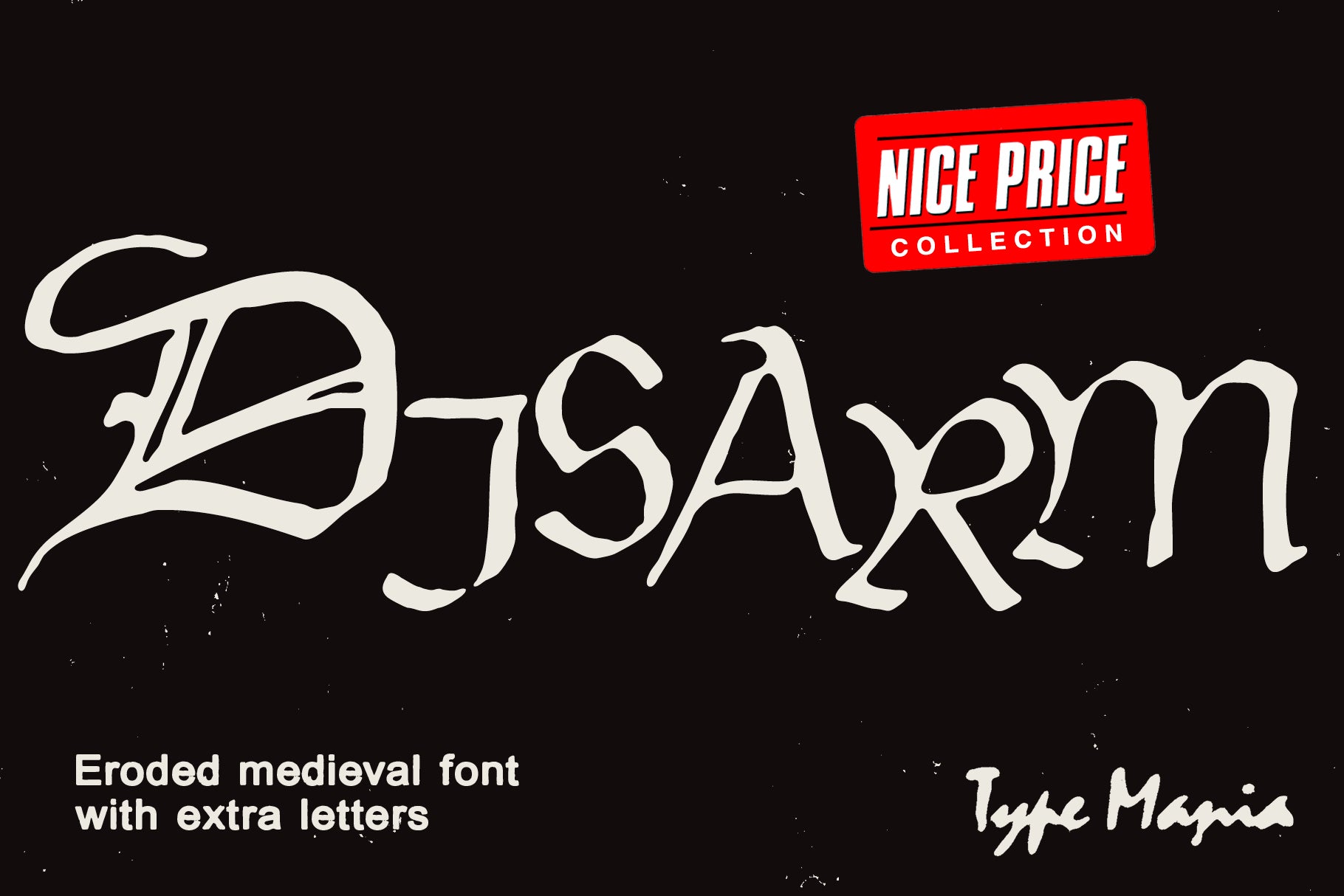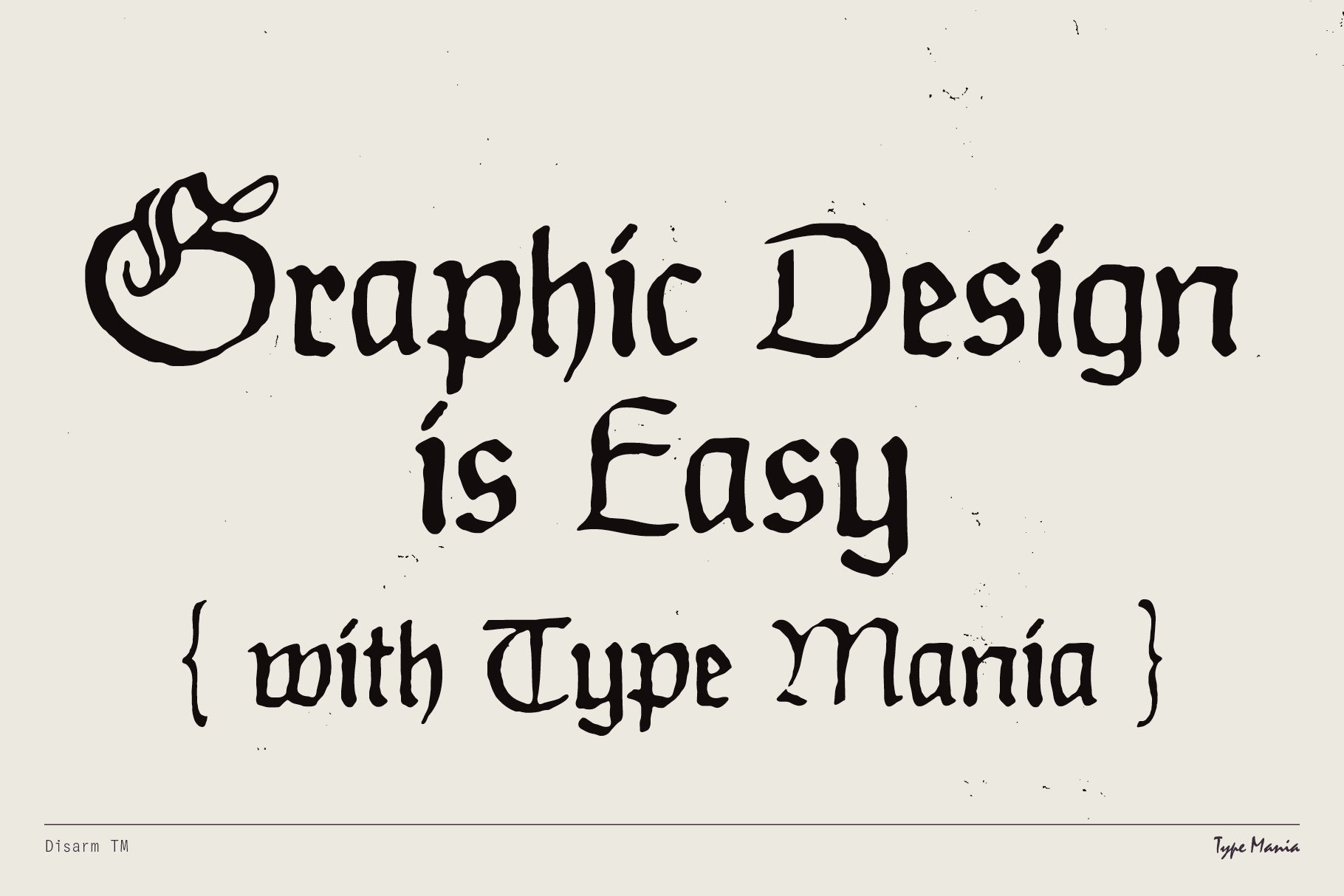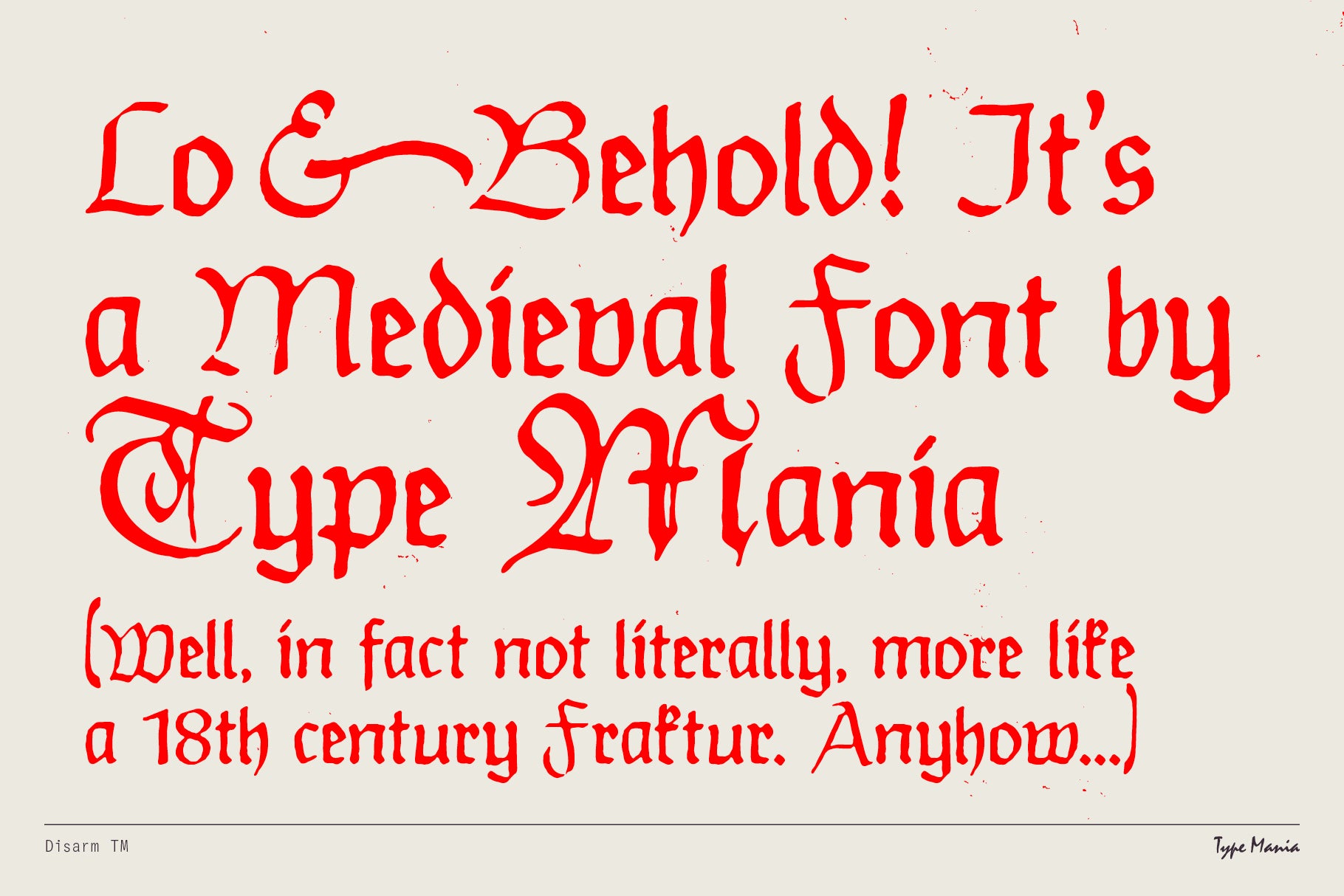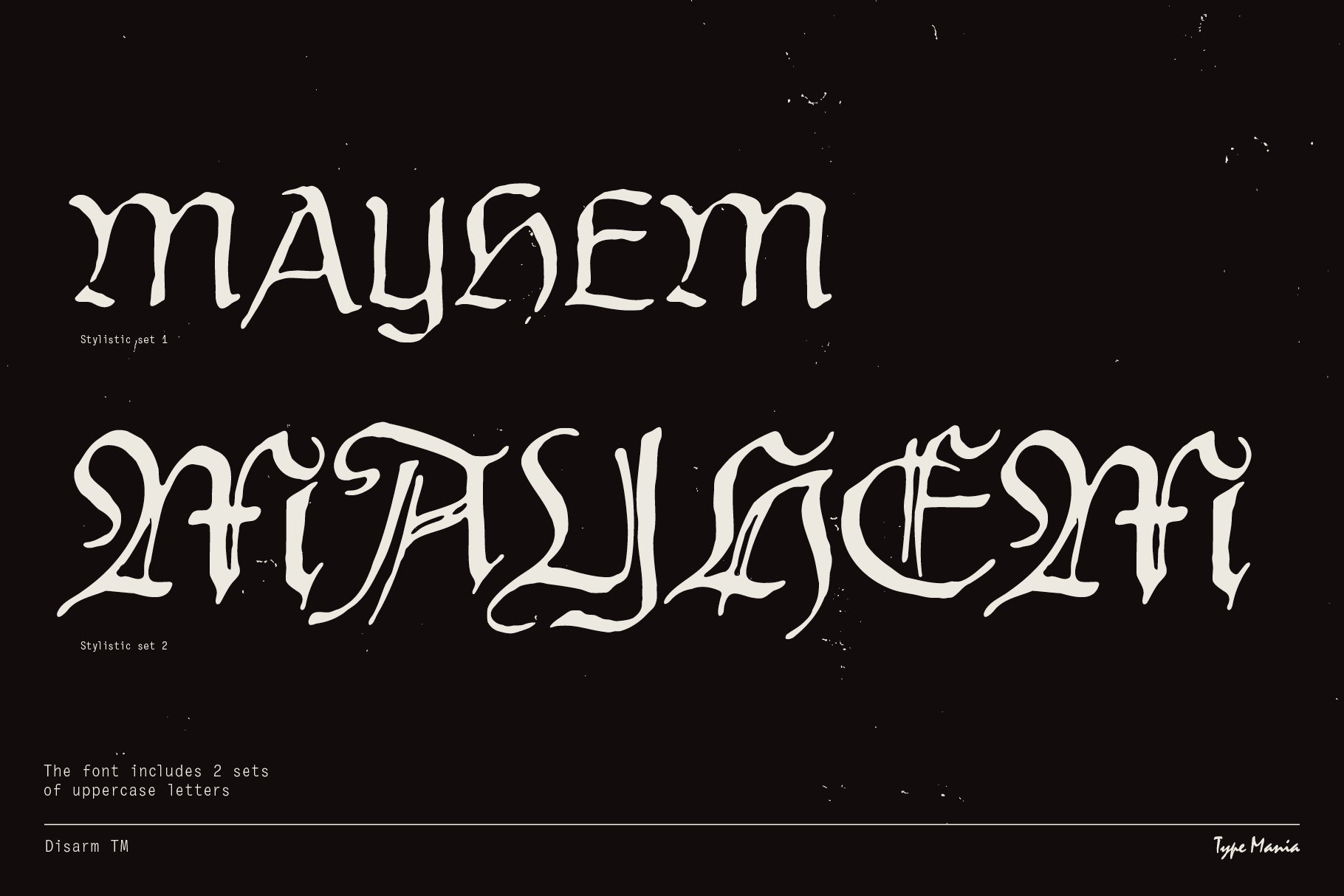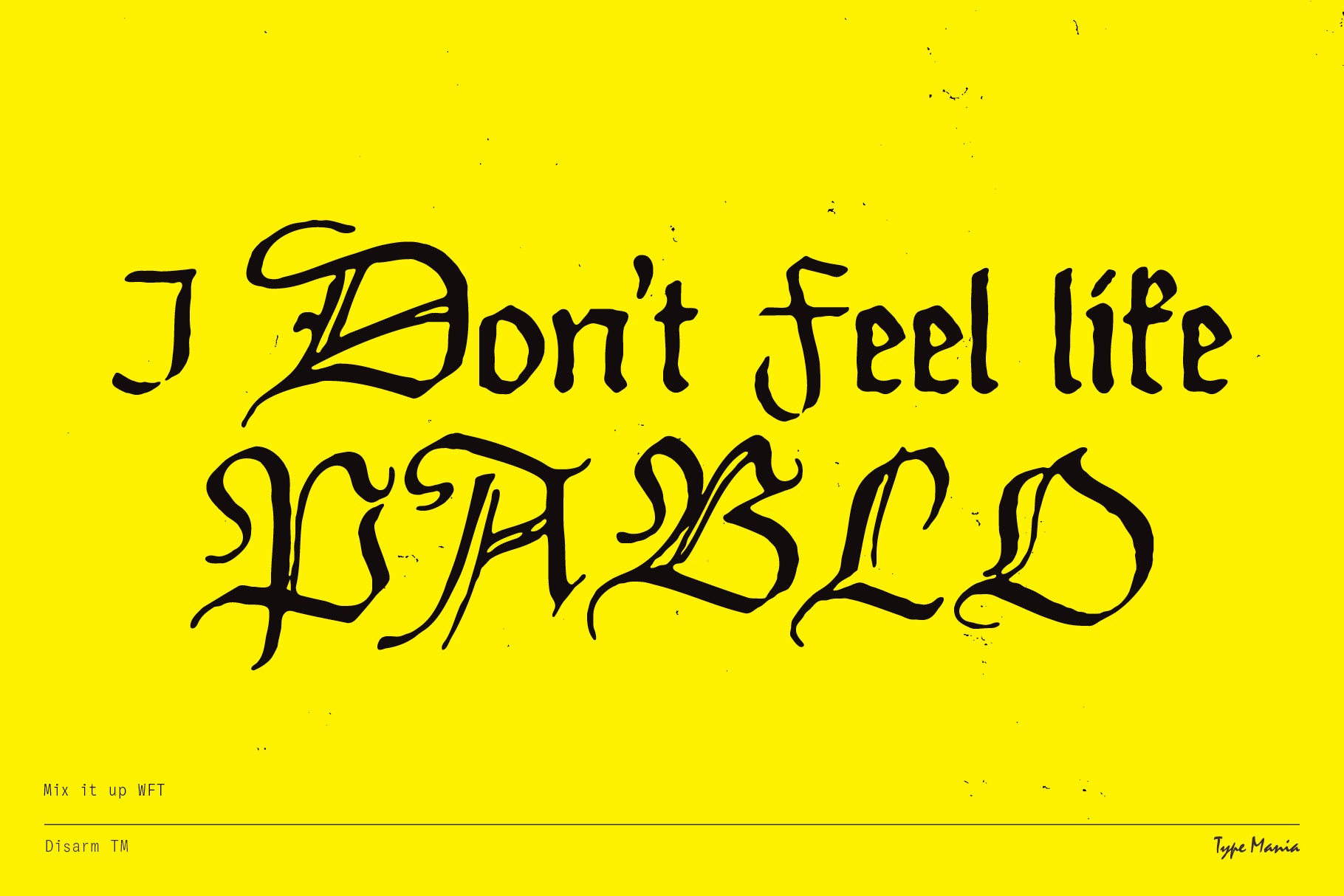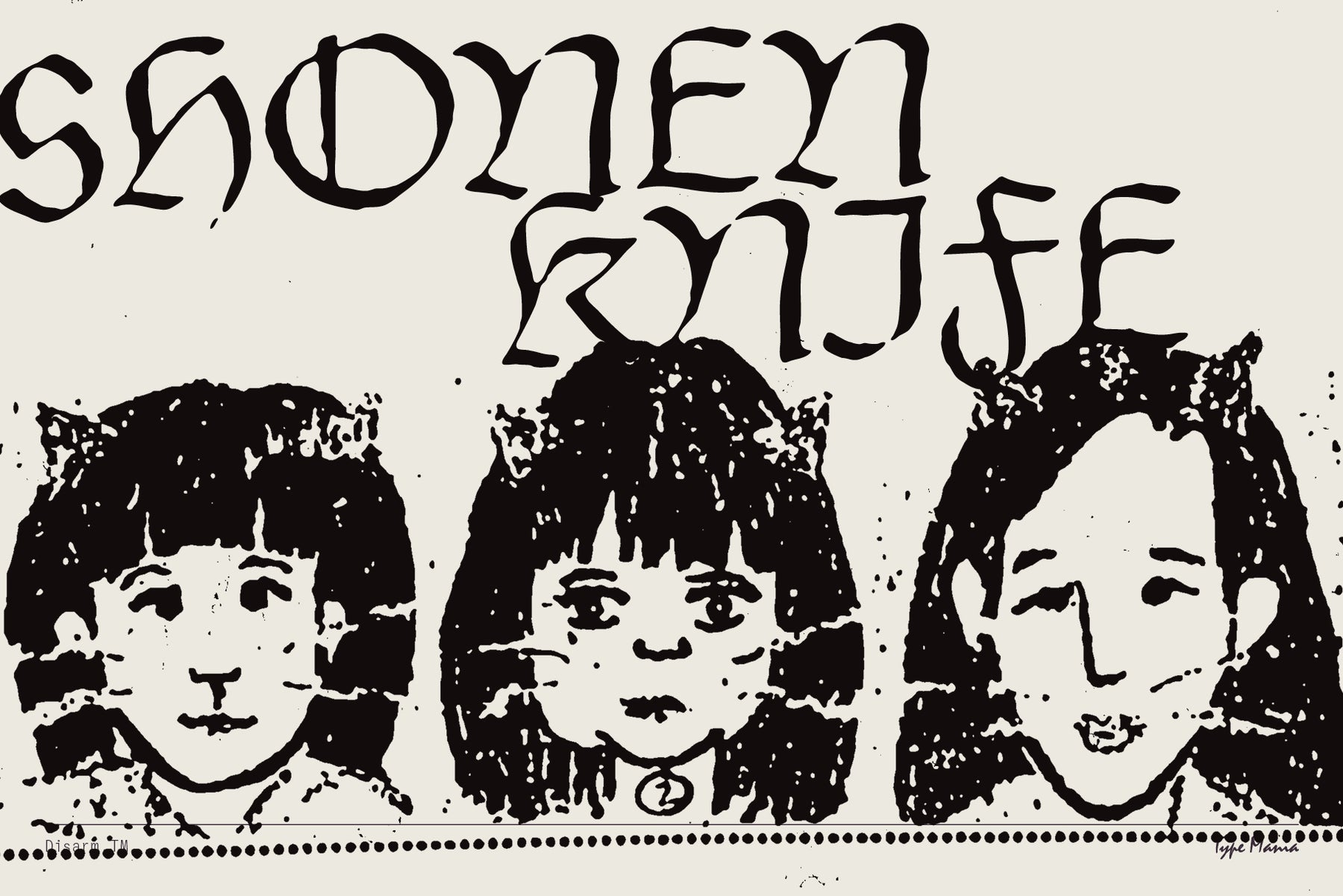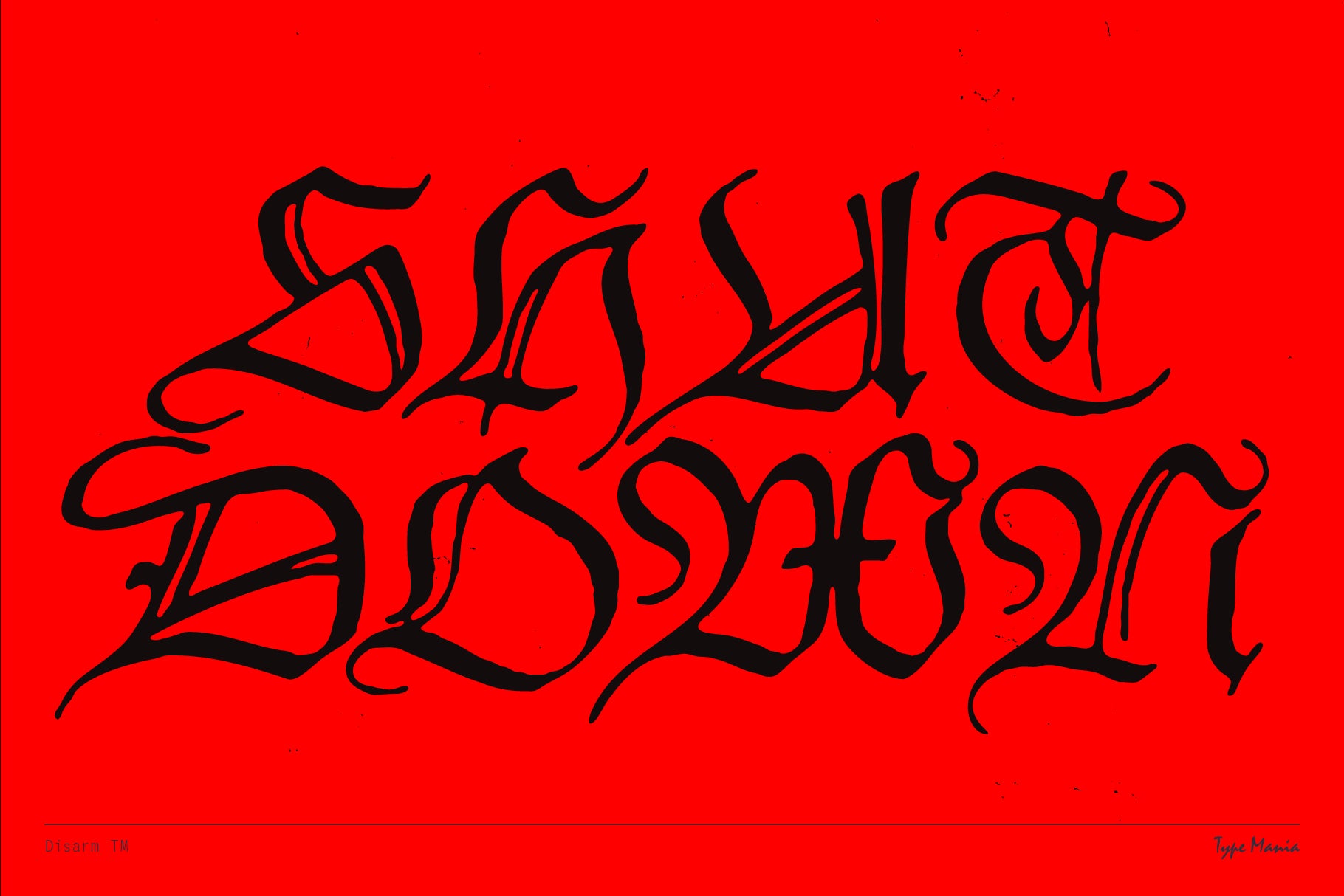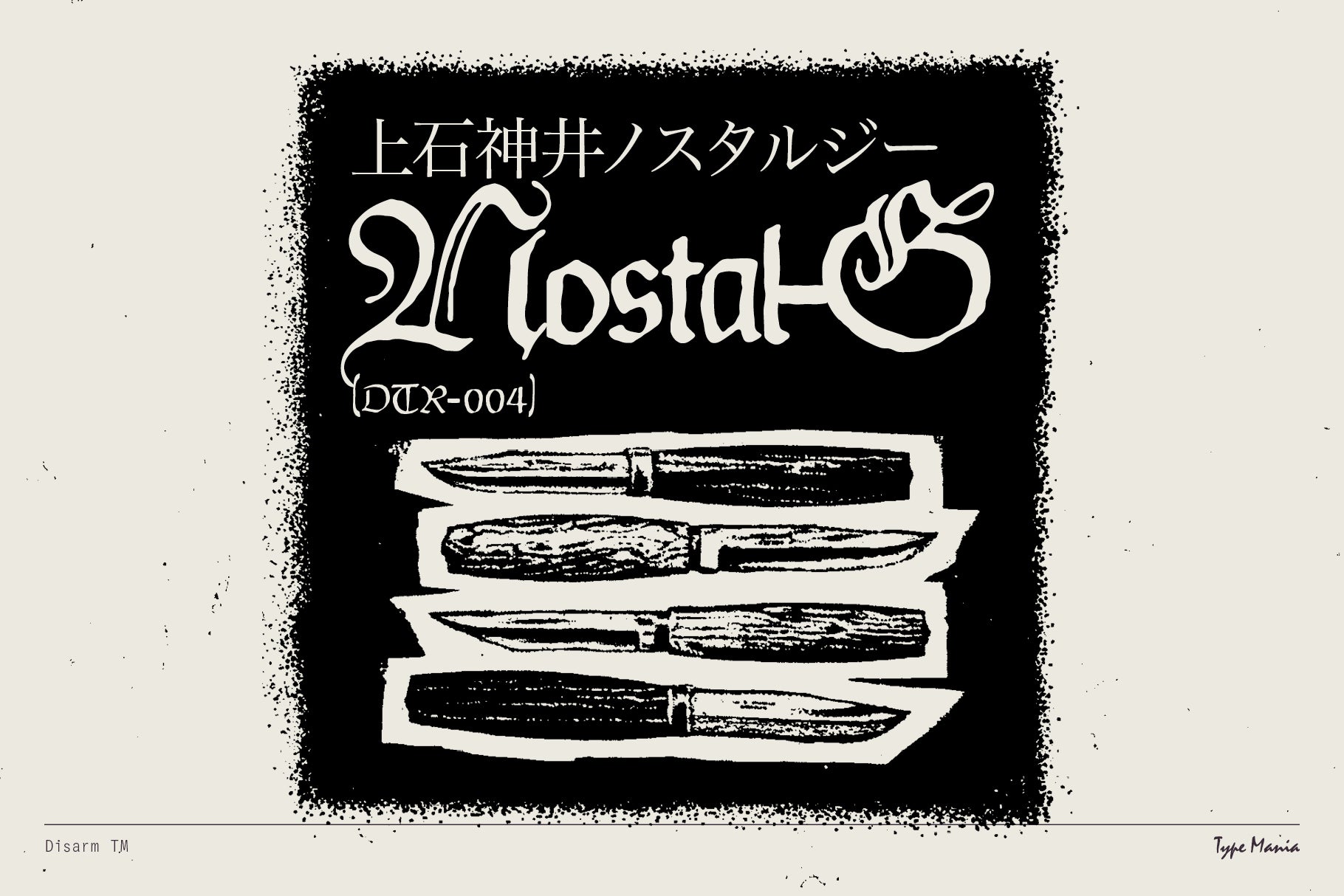
Disarm TM created by Type Mania – a Fraktur with irregular rhythm and distressed details. Limited languages, but alternative capital letters on Stylistic Set 2 🤝Zip includes• OTF file• TTF file• WOFF2 fileLanguages• Basic Latin• EuroGraphic Design is Easy (with Type Mania)®